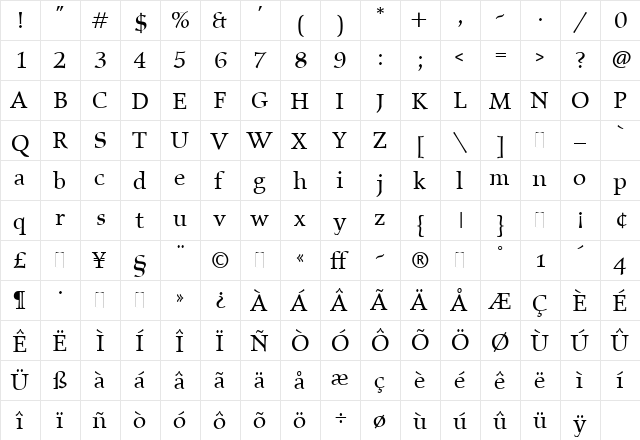
Elysium Book Regular
Design Context for Elysium Book Typeface
Elysium Book offers clean, dependable letterforms without strong stylistic allegiance, making it a practical choice for designers who need flexibility.